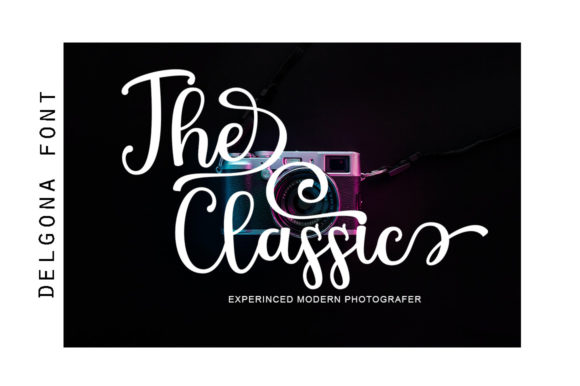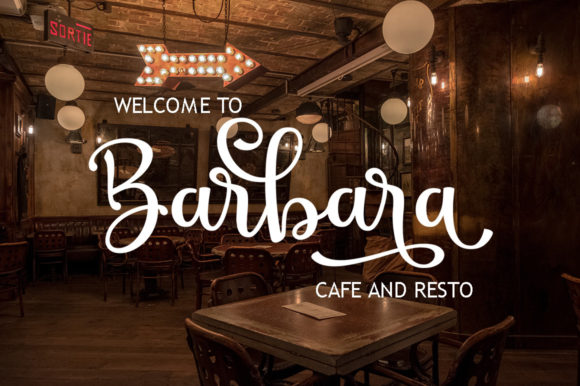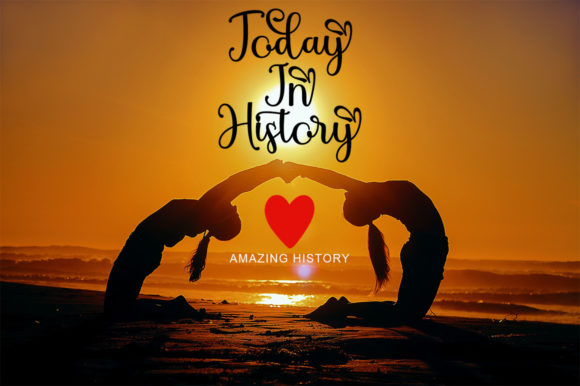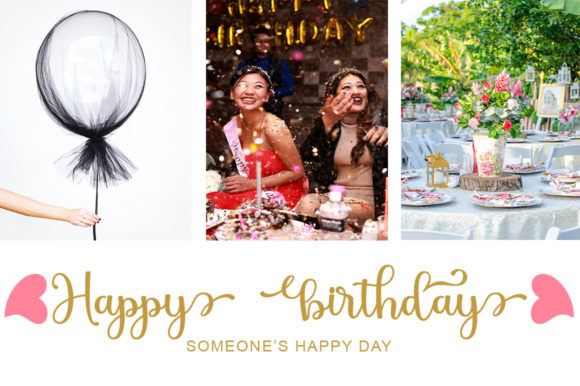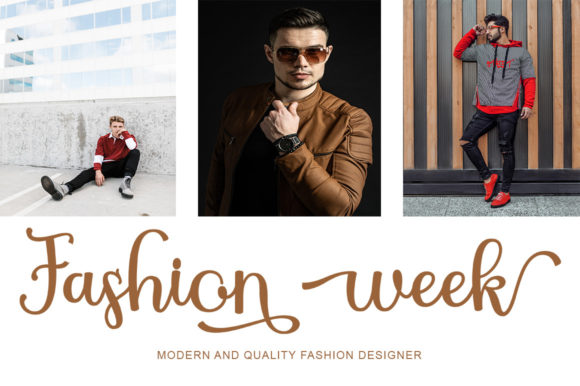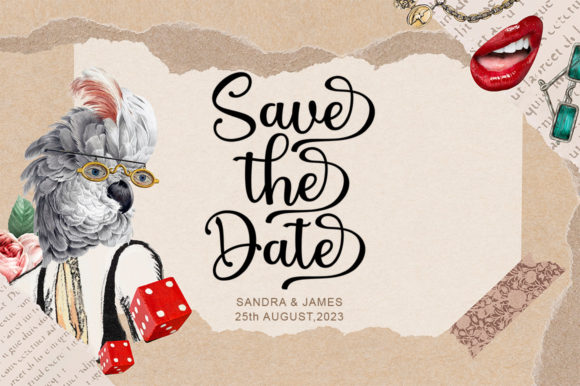
The Delgona Font: A Delicate and Fashionable Script for Creative Projects
Delgona is a delicate and fashionable script font that’s perfect for any branding project, from logos to t-shirt printing, and creative products. In this article, I’ll share my honest review of the Delgona font, provide a practical guide on how to use it, and explore similar fonts and alternatives.
Honest Review: What I Love and What I Don’t
The Good ✨
- Delgona is a beautifully designed script font with a unique and elegant feel ✅
- It’s perfect for branding projects, such as logos, business cards, and brochures ✨
- The font is PUA encoded, making it easy to access all the glyphs and swashes 🤩
- It’s versatile and can be used for a variety of creative projects, from t-shirt printing to signage 👍
The Not-So-Good 🤔
- Some users may find the font a bit too delicate for certain projects ⚠️
- It may not be suitable for body text or long paragraphs of text 📝
Delgona was designed by a talented font designer who was inspired by the beauty of handwritten scripts. The designer wanted to create a font that was both elegant and fashionable, with a unique and delicate feel. The result is a font that’s perfect for creative projects that require a touch of sophistication and style.
A: Delgona is a delicate and fashionable script font that’s perfect for branding projects, logos, t-shirt printing, and creative products.